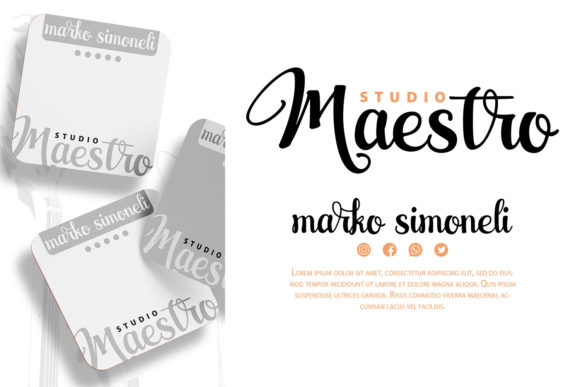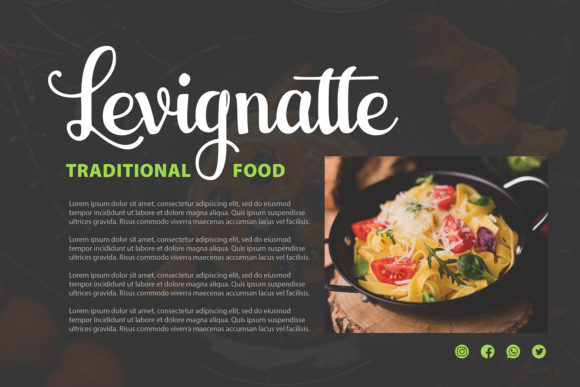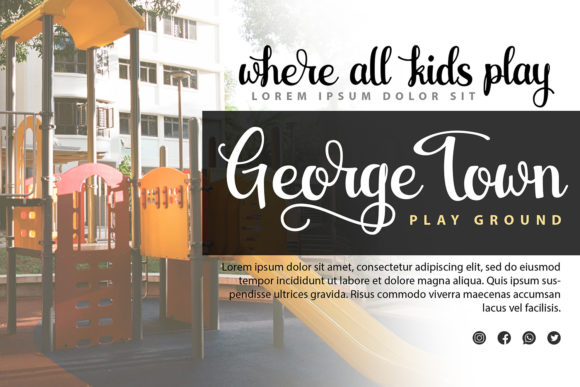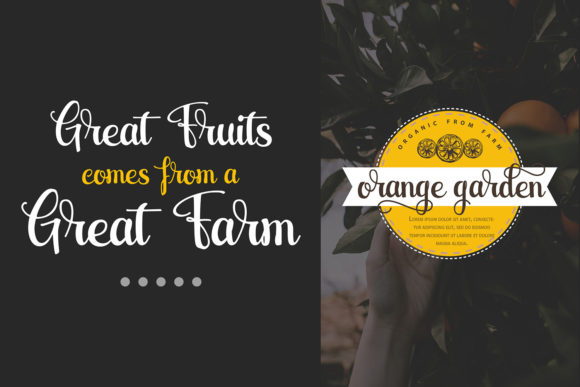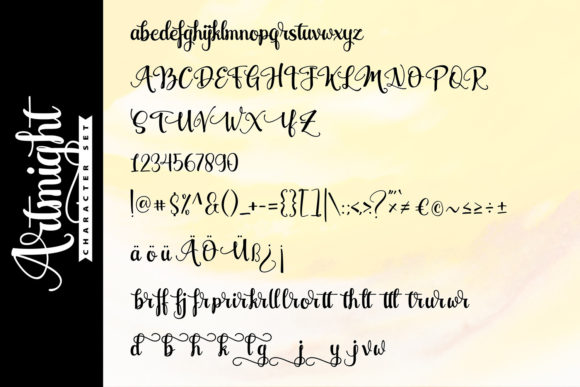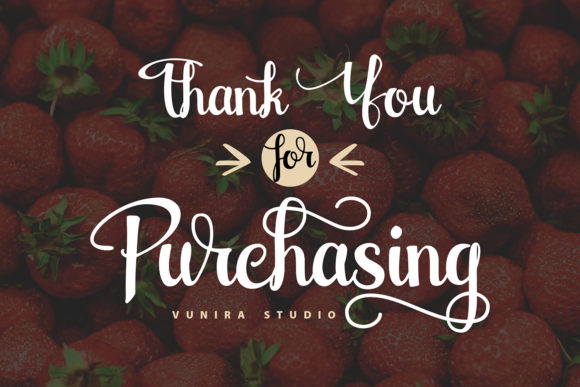
Discover the Art of Elegant Typography with Artmight Font
There’s nothing quite like the thrill of bringing a design to life, and for many creatives, it all starts with the perfect font. You’re staring at a blank canvas, envisioning the perfect words, and suddenly, you’re hit with a spark of inspiration. You know exactly what you need to take your design to the next level – a font that exudes sophistication and charm.
Enter Artmight Font, a masterfully designed handwritten font that perfectly balances classic calligraphy with modern flair. This stunning font is a game-changer for designers seeking to add a touch of elegance to their projects. With its PUA encoding, you’ll have access to a world of glyphs and swashes, giving you endless possibilities for creative expression. Whether you’re working on a wedding invitation, a branding project, or a typography-driven art piece, Artmight Font is sure to be your new go-to companion.
Key Features of Artmight Font
- Unique Characteristics: The Artmight Font features a unique blend of modern and classic design elements, making it suitable for a wide range of applications, from branding and advertising to editorial and publishing.
- Font Style and Variations: The Artmight Font comes in 5 different styles: Regular, Italic, Bold, Bold Italic, and Outline, allowing for a high degree of customization and flexibility.
Artmight Font Review
I recently had the chance to work with the Artmight Font, and I’m excited to share my honest review with you.
- The Artmight Font has a unique and elegant aesthetic that makes it perfect for creative projects.
- The font is highly customizable, with a wide range of weights and styles to choose from.
- It’s a great choice for digital projects, as it’s highly legible on various screen sizes and resolutions.
- The Artmight Font can be a bit too ornate for some projects, making it difficult to read at smaller font sizes.
- It may not be the best choice for body text, as it’s better suited for headlines and titles.
The Artmight Font is a beautiful and versatile font that’s perfect for creative projects. While it has some limitations, it’s a great choice for designers who want to add a touch of elegance to their work. With its high level of customization and legibility, it’s definitely worth considering for your next project.
Tips for Getting the Most Out of Artmight Font
Use Artmight Font for creative projects that require a unique and stylish touch. Experiment with different font sizes, colors, and styles to add visual interest. Combine Artmight Font with other design elements, such as images and shapes, to create a cohesive look.
Artmight Font is perfect for:
- Graphic design projects
- Marketing materials (brochures, flyers, etc.)
What is the recommended font size for optimal readability with the Artmight Font?
The recommended font size for optimal readability with the Artmight Font is between 12 and 14 points. However, this may vary depending on the specific application, screen resolution, and personal preference. Experiment with different font sizes to find the most legible and visually appealing combination for your project.